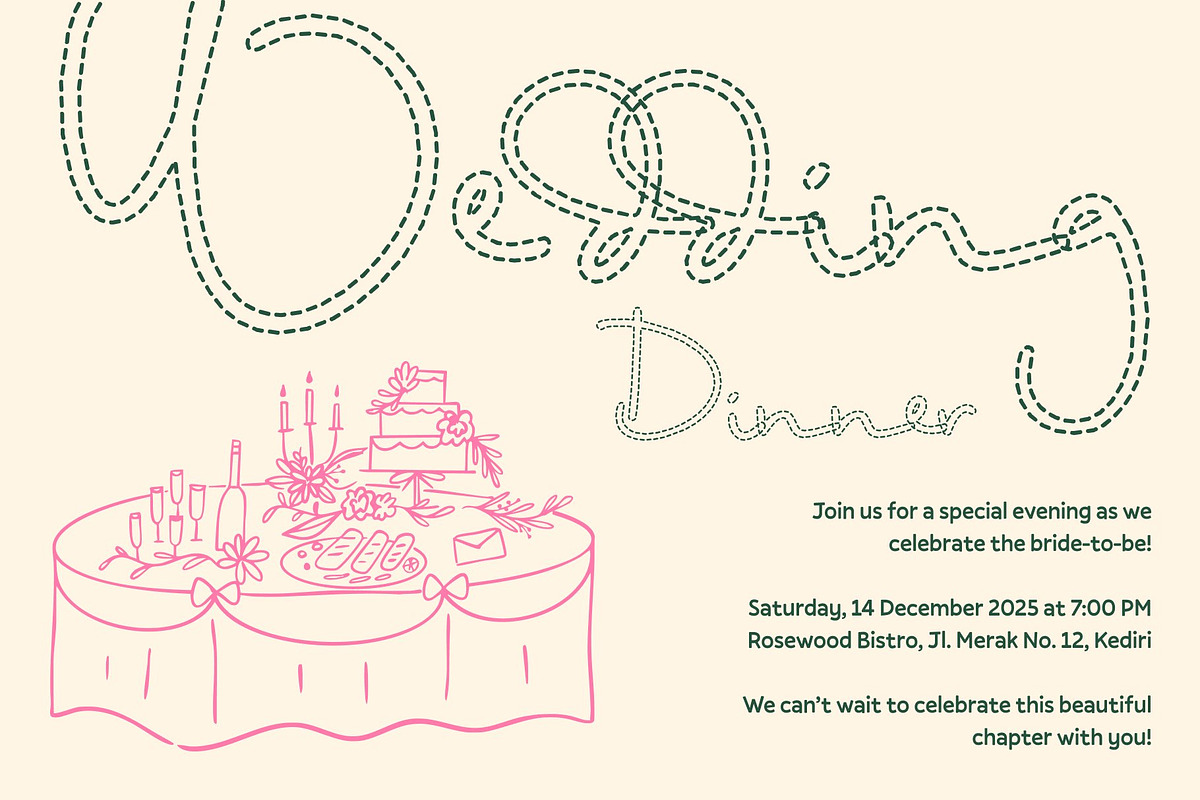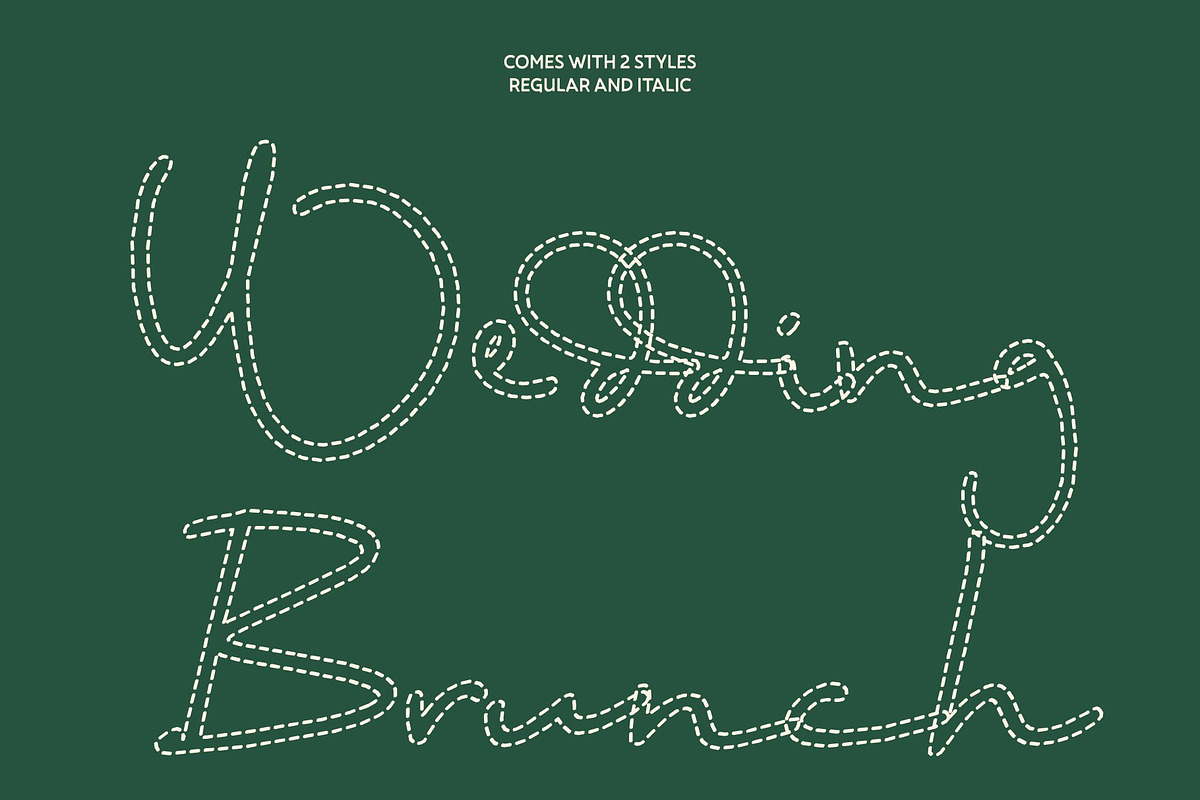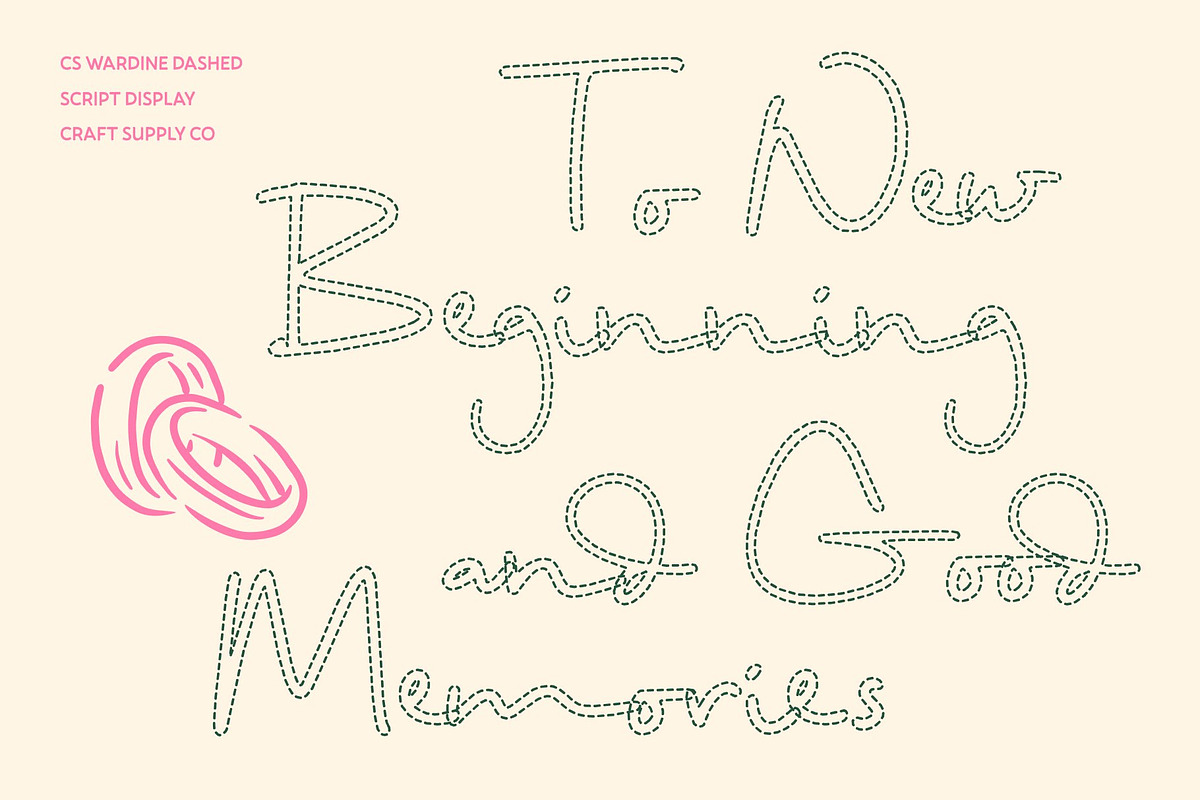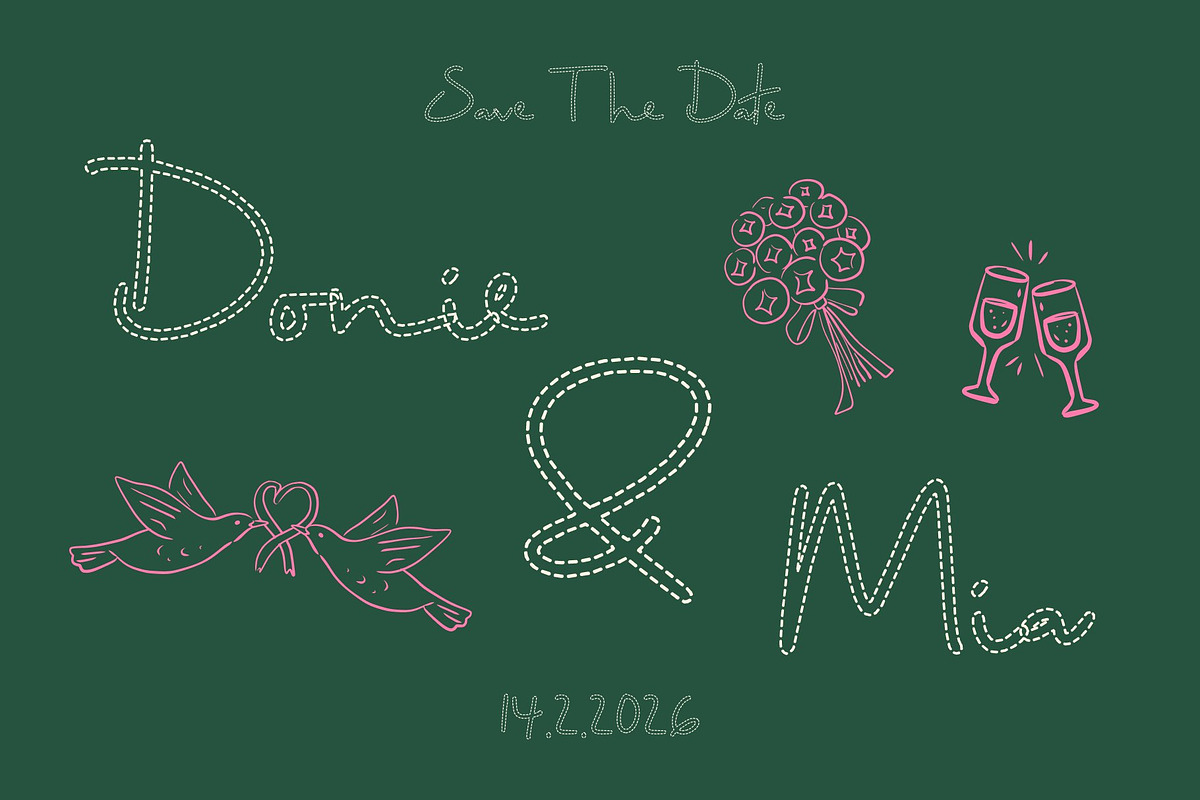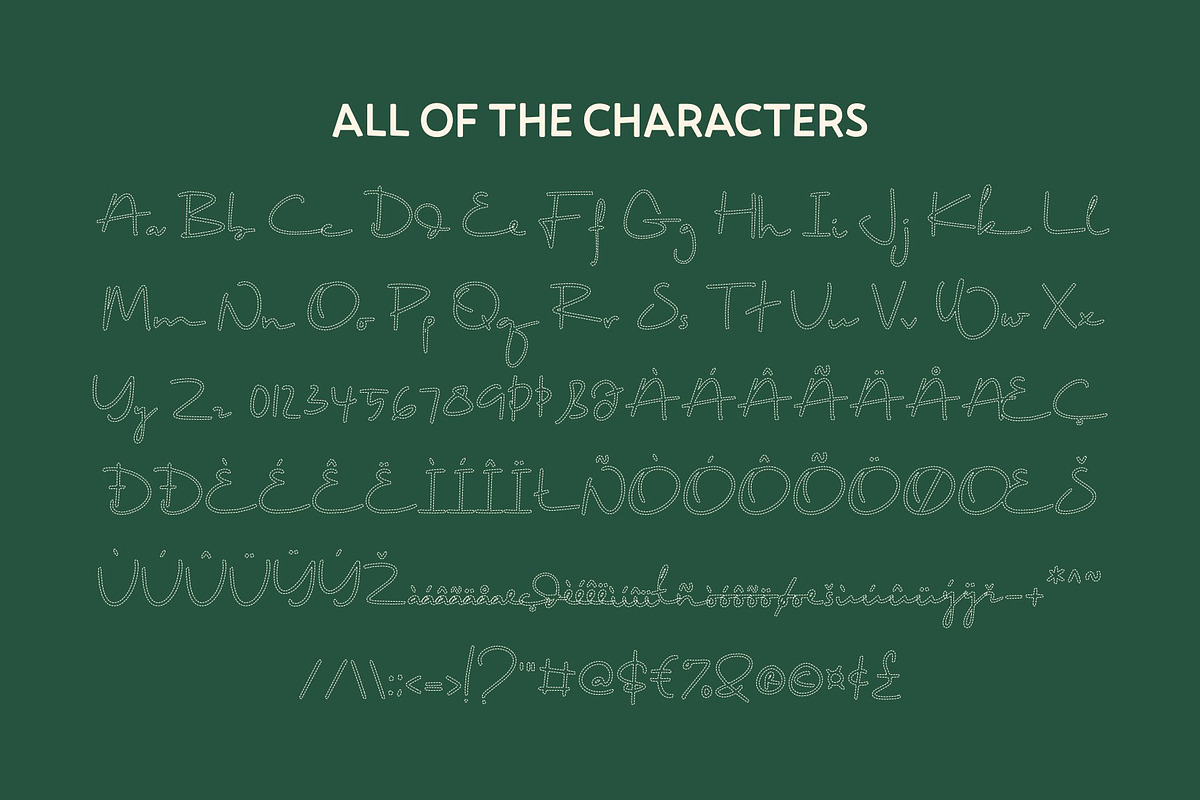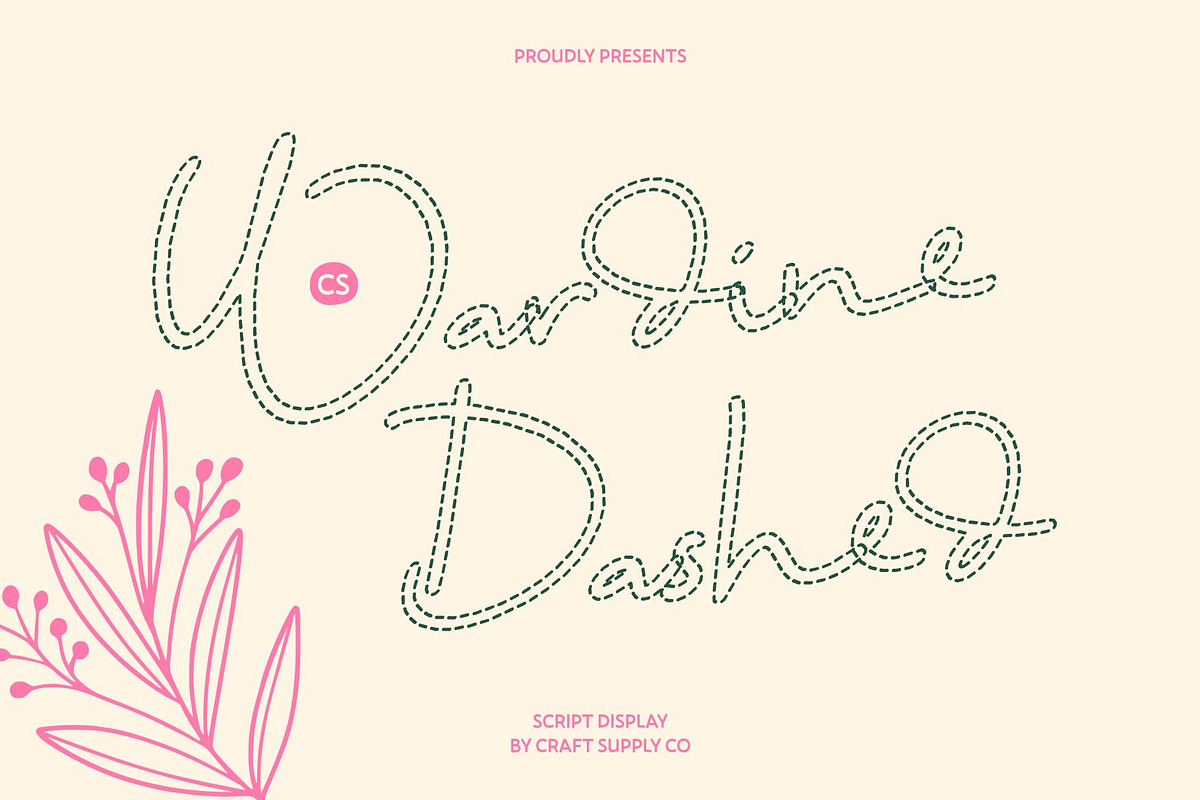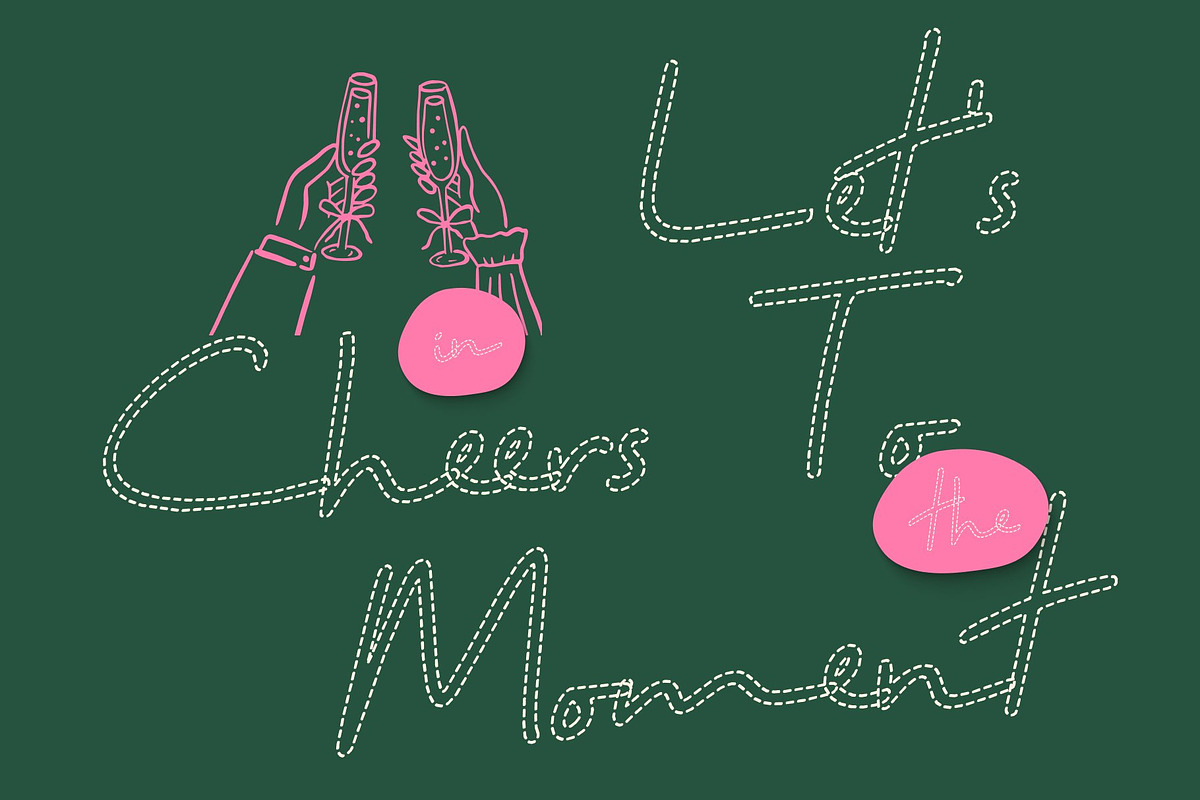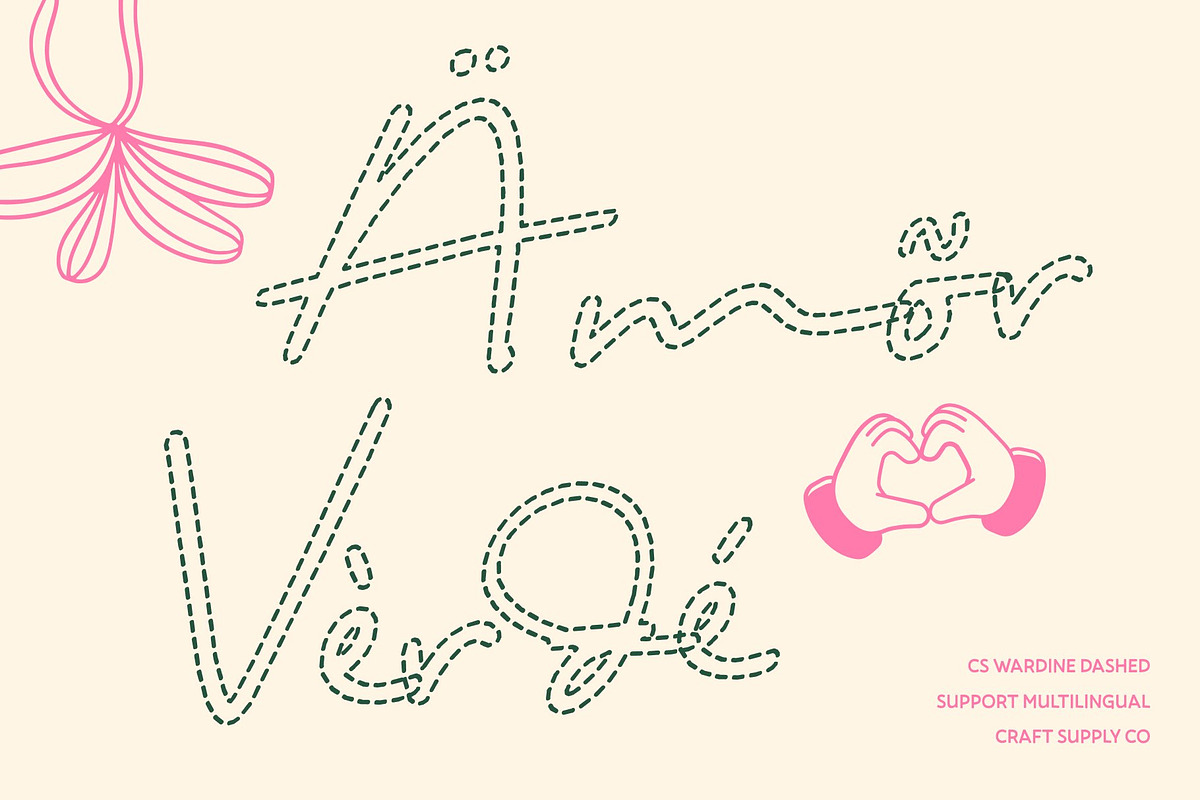
CS Wardine Dashed
CS Wardine Dashed – Soft Handwritten Beauty with Casual Charm
Expressive Handwritten Script Font This is a soft, beautiful, and casual handwritten script font that captures the natural flow and warmth of real pen strokes. Designed to feel expressive yet effortless, it delivers a friendly and approachable personality that brings sincerity and comfort into your designs. Its relaxed handwriting style creates an authentic visual tone that feels personal and inviting.
Natural Strokes with Gentle Expression The letterforms feature smooth curves, organic connections, and subtle stroke variations that mirror natural handwriting. These details give the font a lively and expressive character while maintaining excellent readability. The balance between softness and clarity makes it versatile for a wide range of creative uses, enhanced by its charming dashed texture.
Warm and Casual Personality With its casual and expressive nature, this font adds a warm, human touch to any design. It communicates emotion naturally, making text feel handwritten and heartfelt rather than mechanical. This quality makes it especially effective for designs that aim to connect emotionally with the audience.
Perfect for Personal Branding and Invitations This font is ideal for personal branding, inspirational quotes, casual invitations, lifestyle content, and social media graphics. Its soft handwritten charm enhances projects that value authenticity and warmth. Whether used for friendly branding or expressive messaging, it delivers a welcoming and character-filled handwritten presence.
CS Wardine Dashed Regular
CS Wardine Dashed Italic